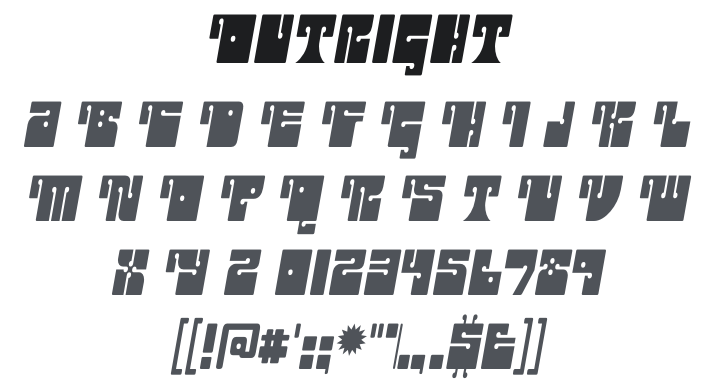
Outright Font
About Outright
Outright is a bold, slanted Art Nouveau display typeface with a chaotic twist — organic, flowing influences collide with sharp geometric notches and mechanical cutouts, creating a delightfully contradictory gallimaufry of styles. The italic stance gives it fierce momentum. Perfect for alternative music posters, edgy fashion branding, experimental editorial headlines, and any design that thrives on beautifully unruly, rule-breaking energy.